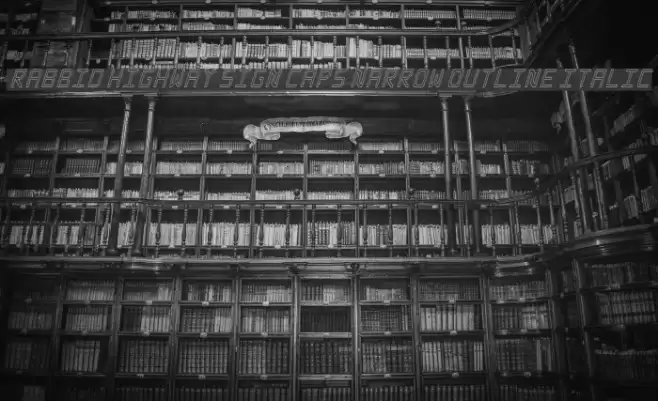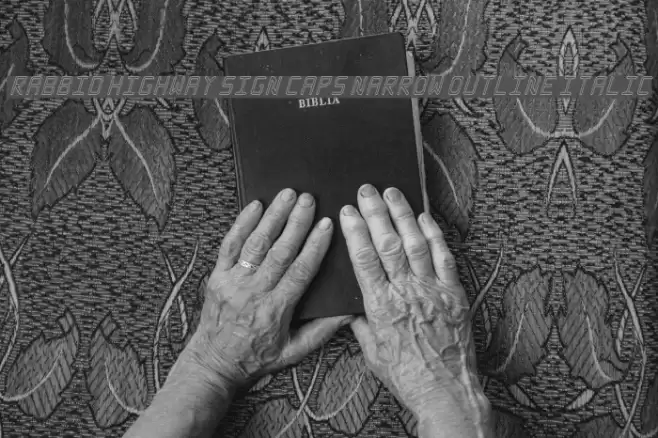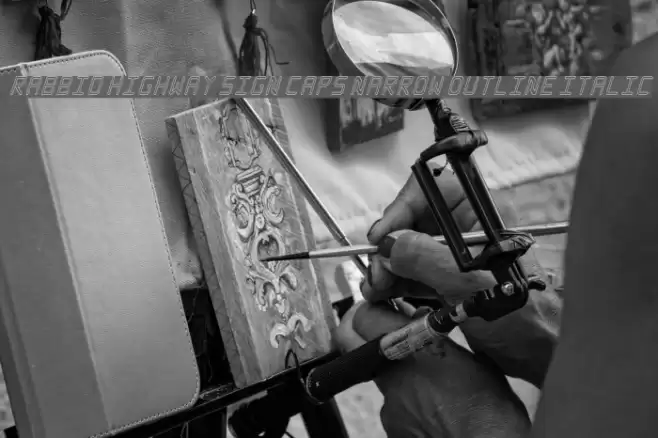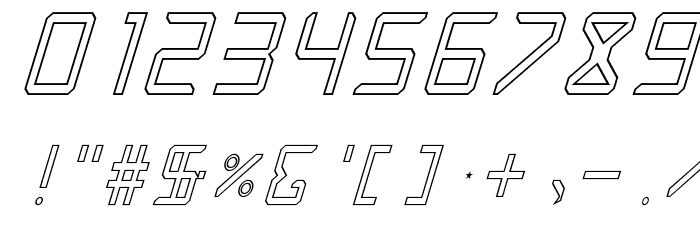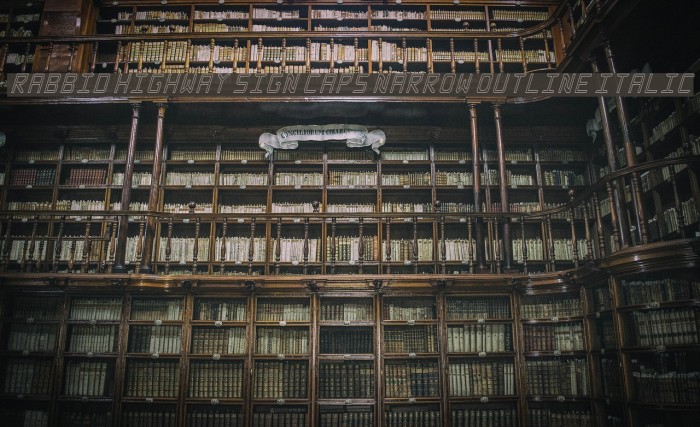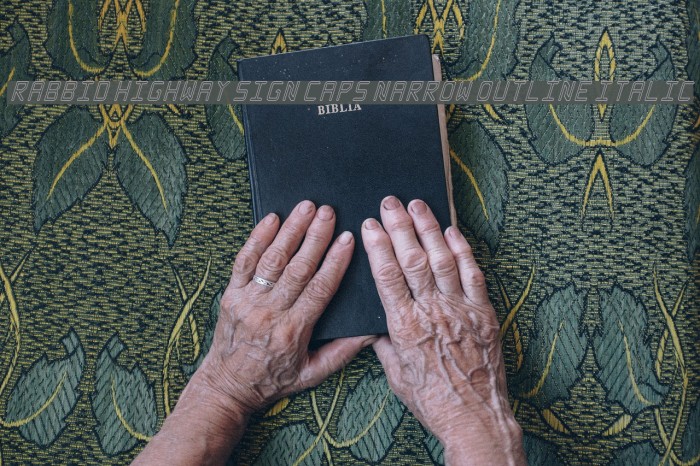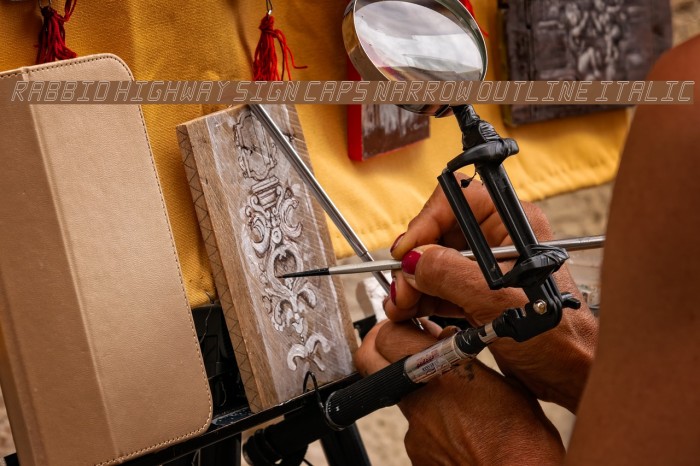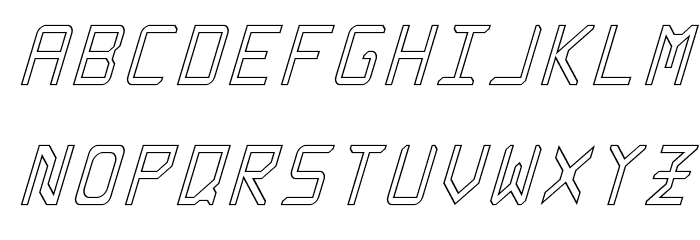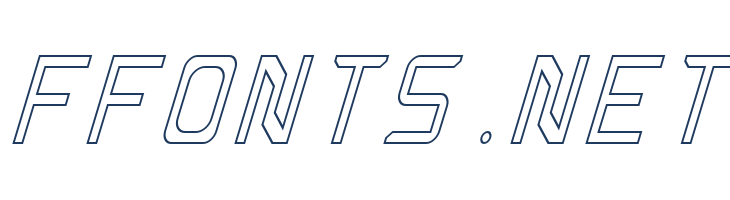
Rabbid Highway Sign Caps Narrow Outline Italic Font
Rabbid Highway Sign Caps Narrow Outline Italic Description
This font features a distinct outline style with a narrow and italicized form, giving it a dynamic and modern appearance. The characters are uppercase and maintain a consistent height, with sharp angles and clean lines that create a sense of movement. The outline effect adds a layer of depth, making the letters stand out against various backgrounds. The numbers and special characters follow the same stylistic approach, ensuring uniformity across all glyphs. This font is particularly suitable for designs that require a bold and futuristic look.
A narrow, italic, outlined font with a modern and dynamic style from Uncategorized fonts.
- Proposed Projects: Ideal for futuristic designs, tech-related branding, signage, and posters that require a standout and modern aesthetic.
- Use Case: Headlines, Logos, Signage